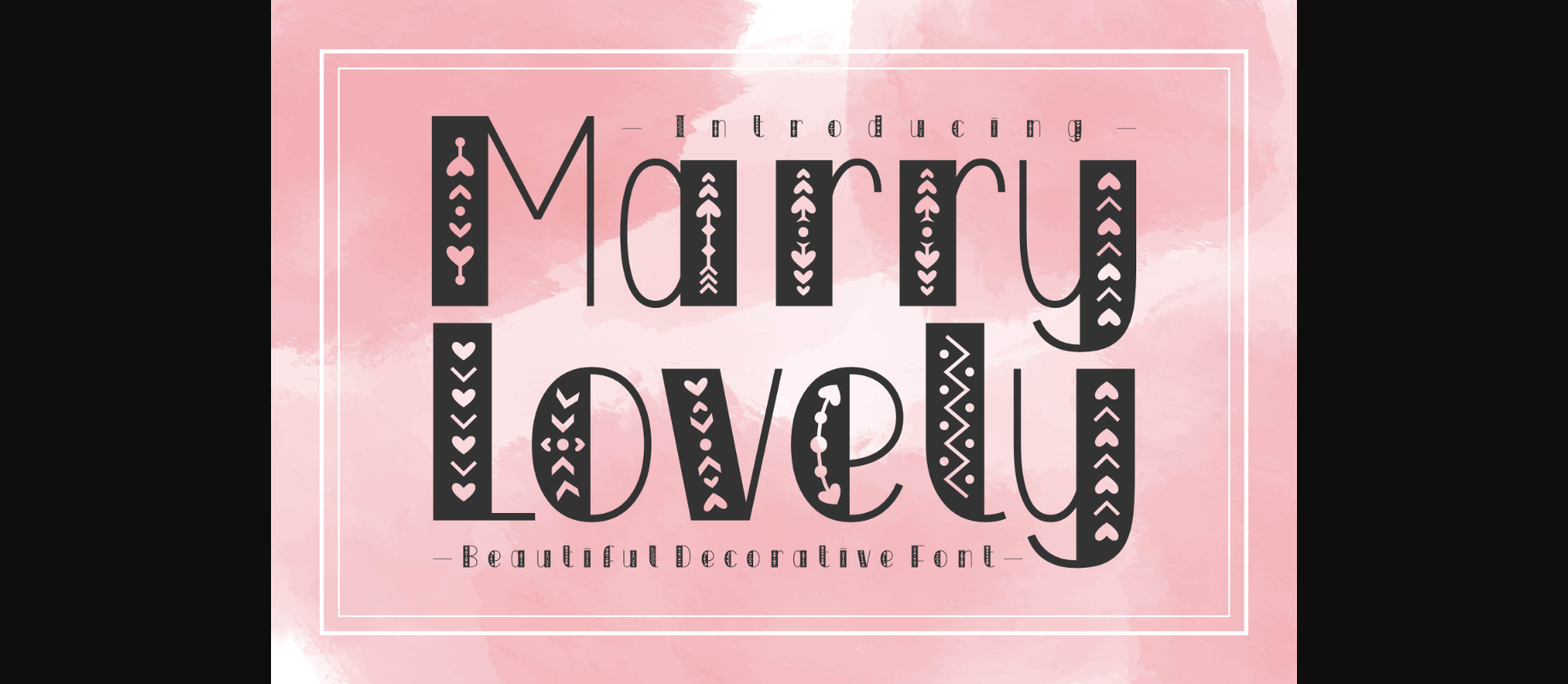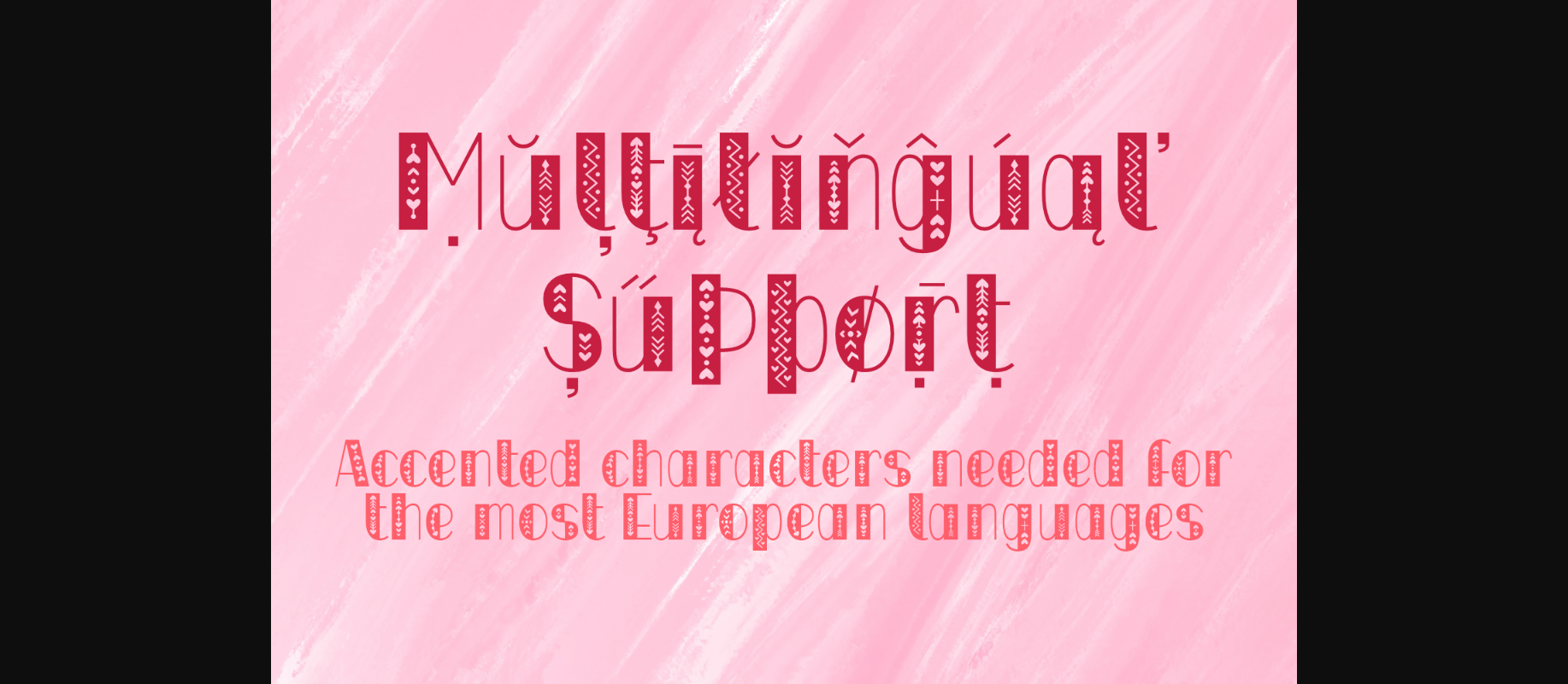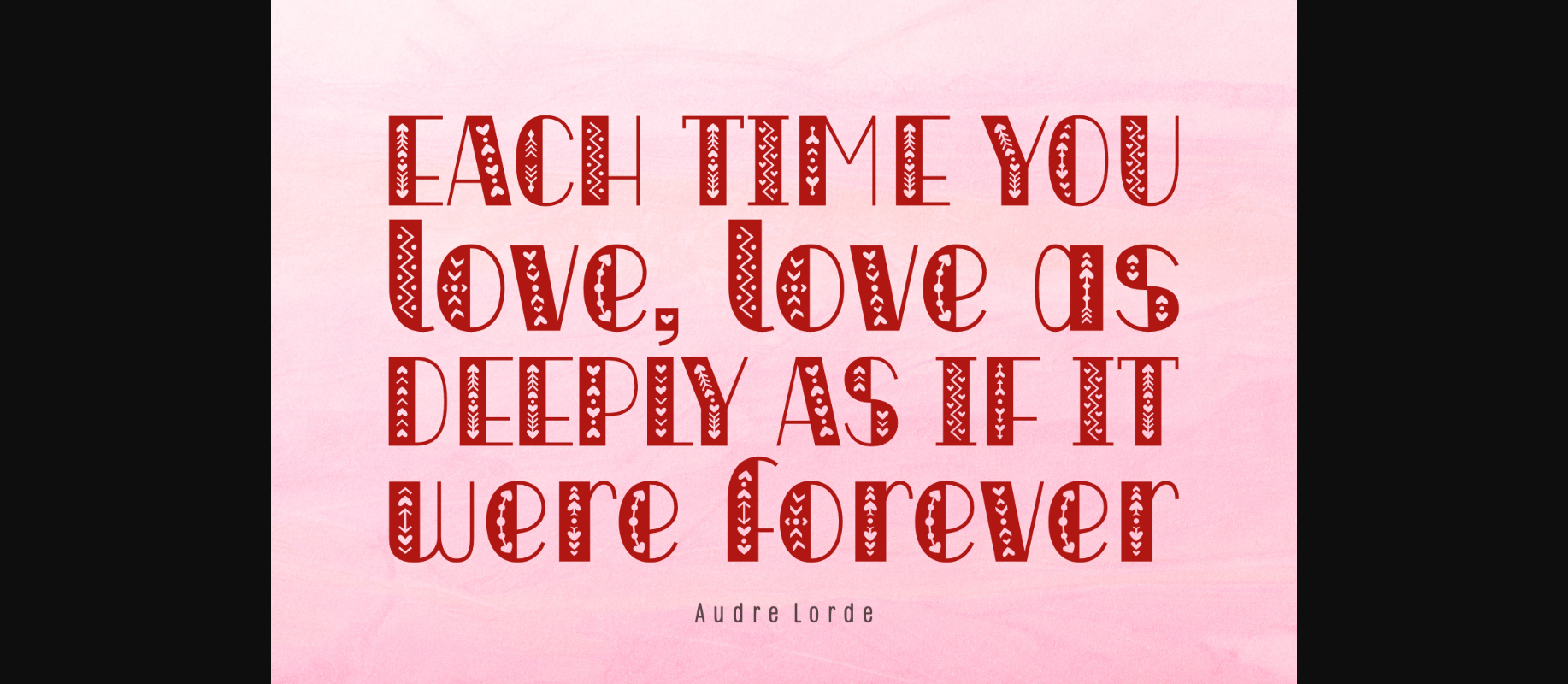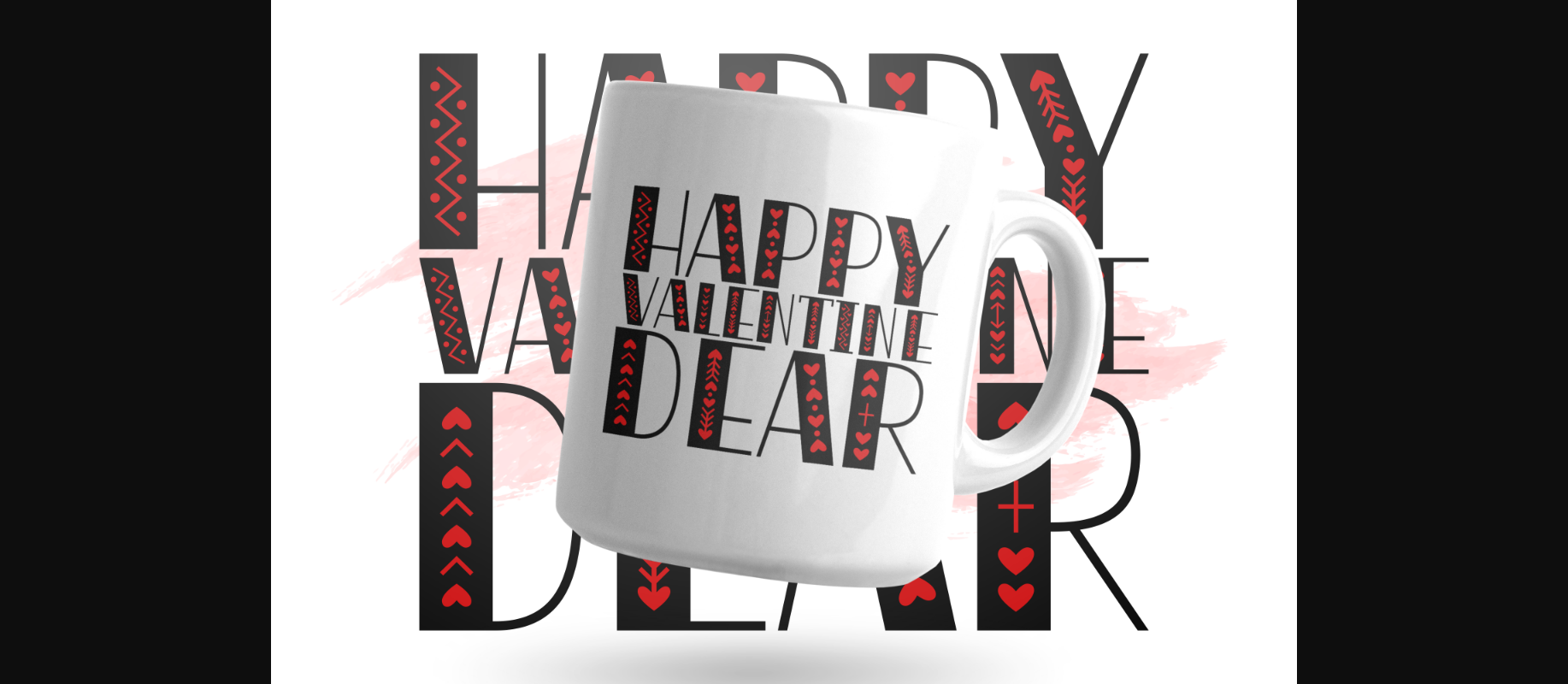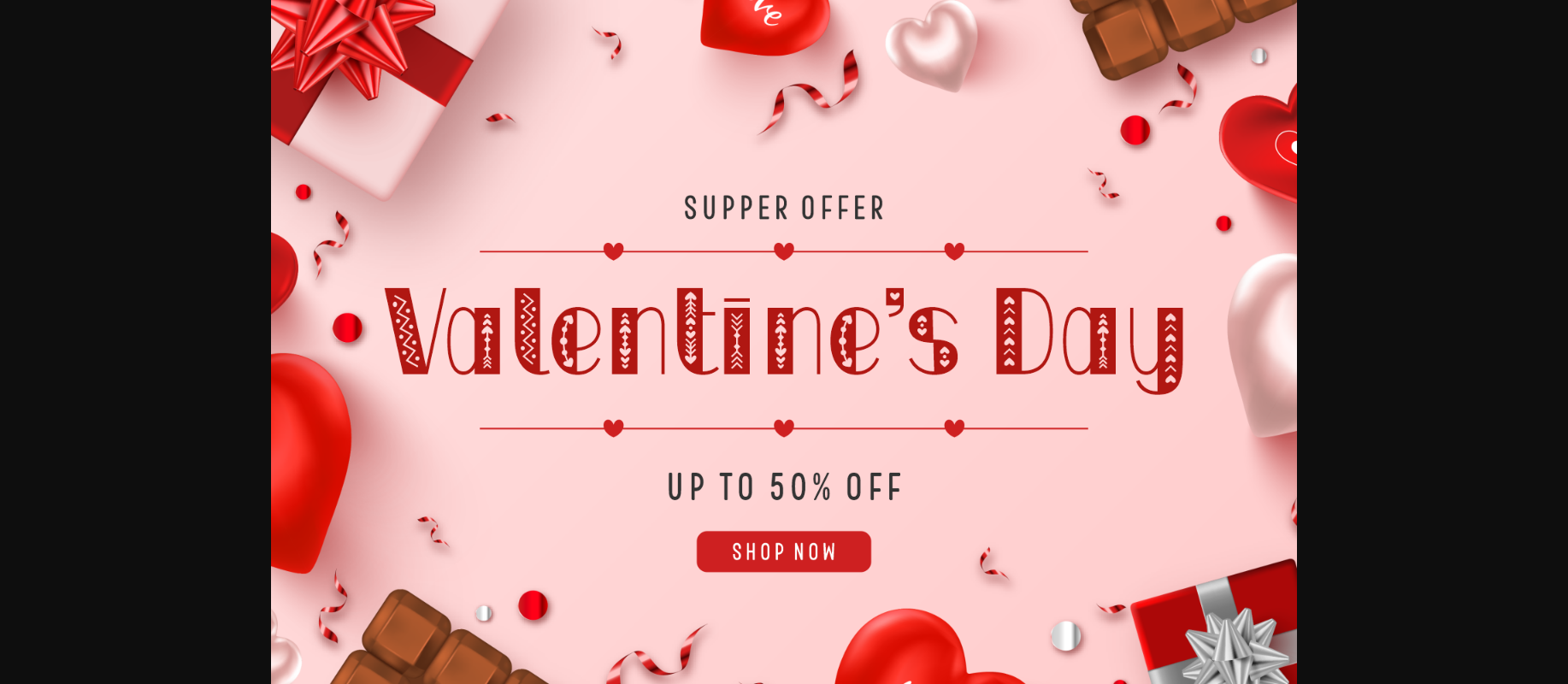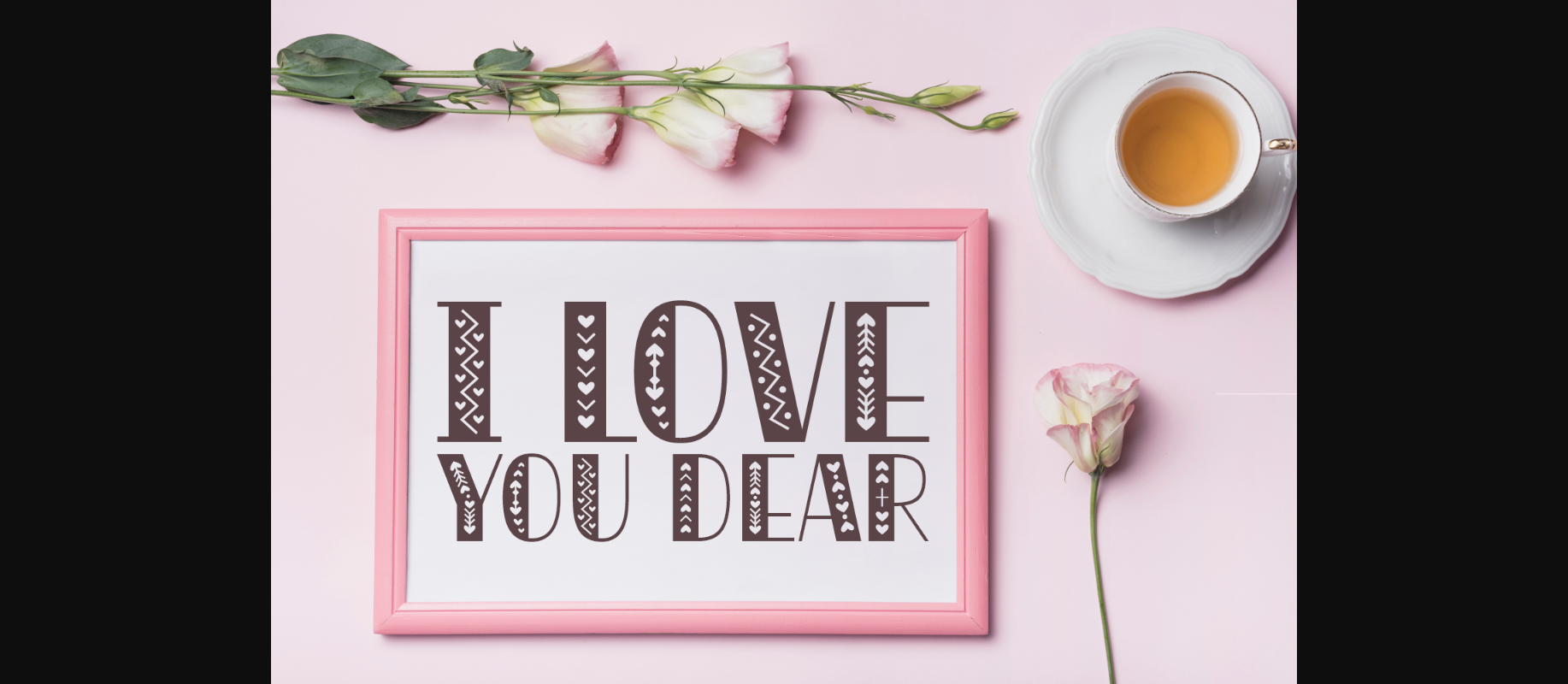
Marry Lovely Font
About Marry Lovely Font
Marry Lovely is a stylish and charming decorative font. Bring love and cuteness to your typography with this adorable font that features little heart decorations. Add it to your library and use it to take your designs to the next level!